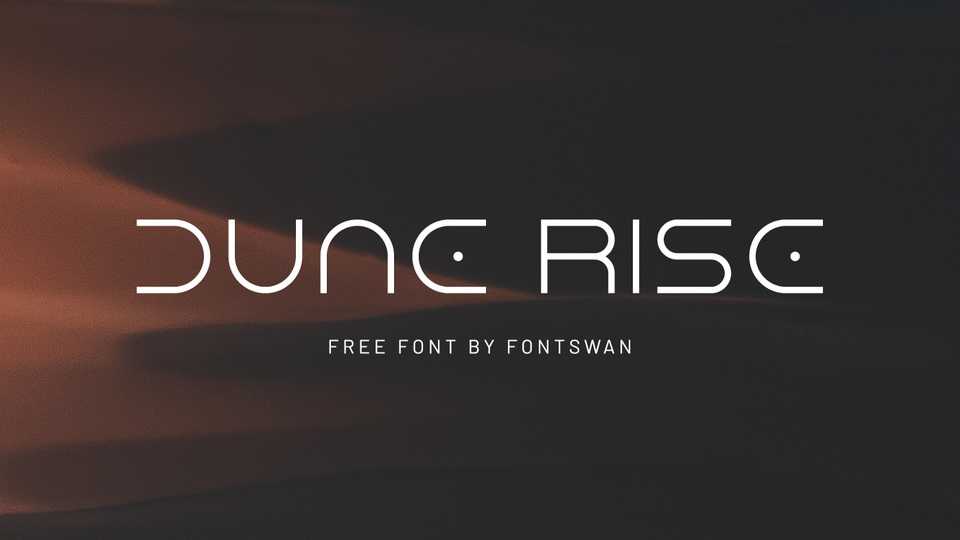
Download Dune Rise font, a tech and sci-fi typeface that combines circular forms and straight lines, based on Dune movie title font. Dune Rise font has a futuristic appearance, so it is compatible with futuristic themes and modern architecture.